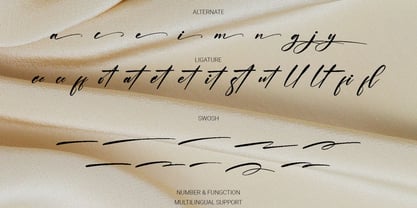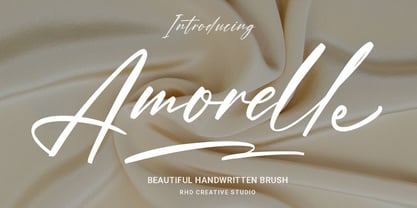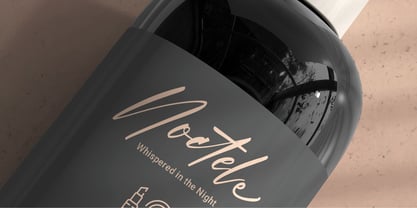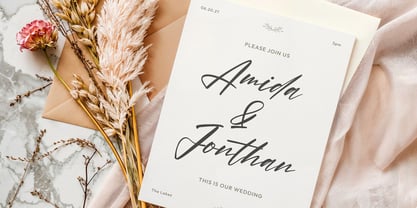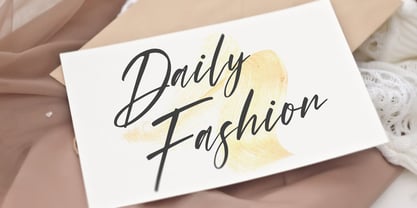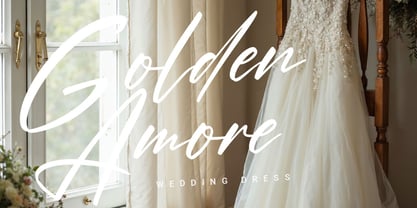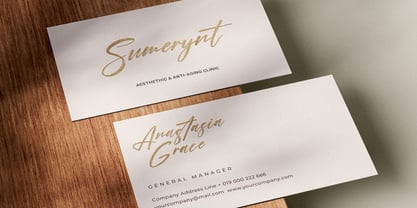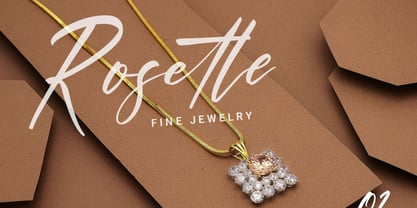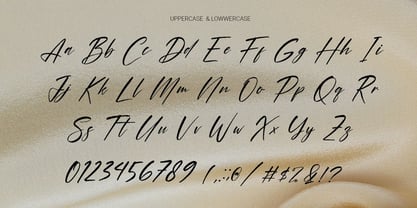
Amorelle
Hello everyone, I would like to introduce Amorelle - Beautiful Handwritten Brush Font. Amorelle - Beautiful Handwritten Brush Font with Handmade character. Amorelle - Beautiful Handwritten Brush Font, Modern font to make your design project stand out! Amorelle a perfectly choice for any creative endeavor, creating, modern, chic, lifestyle design such as logotype, title, cover, branding, invitations, wedding designs, display and magazine, social media posts, advertisements, printed quotes, product packaging, corporate brand, product designs, labels, photography, watermarks, special events and any other project with modern touch.